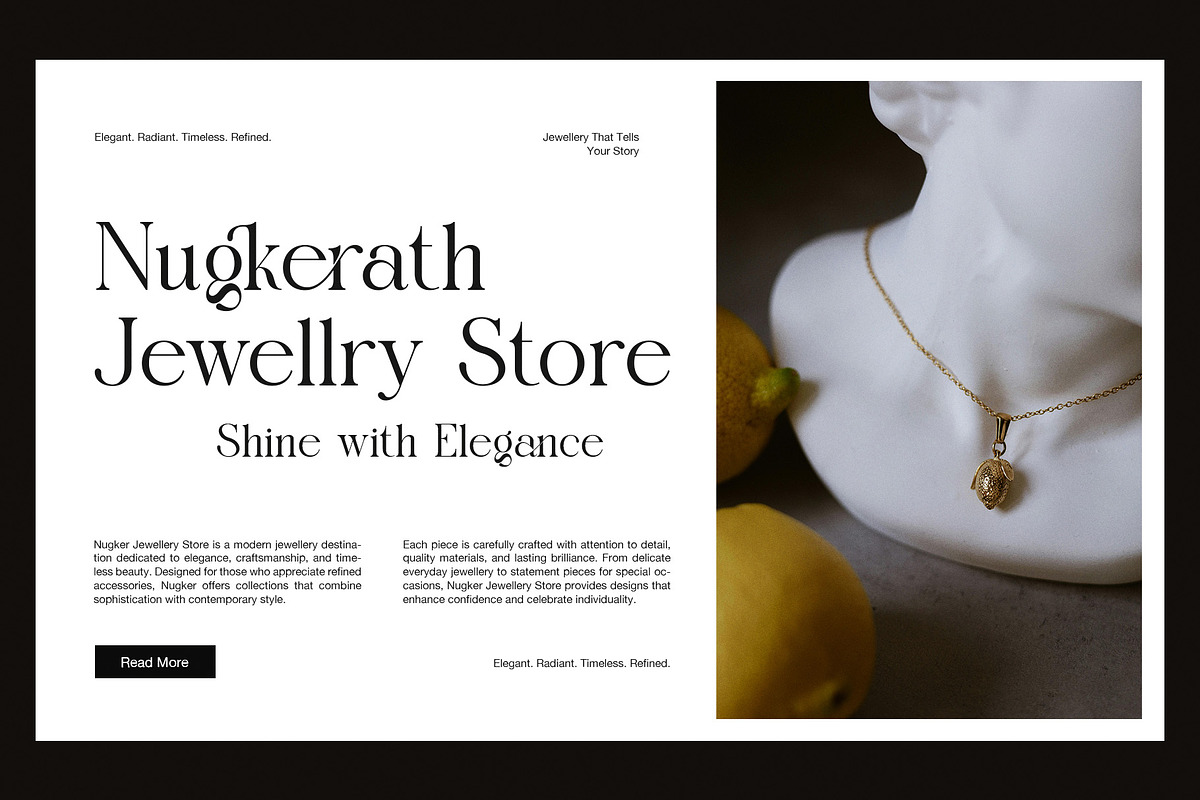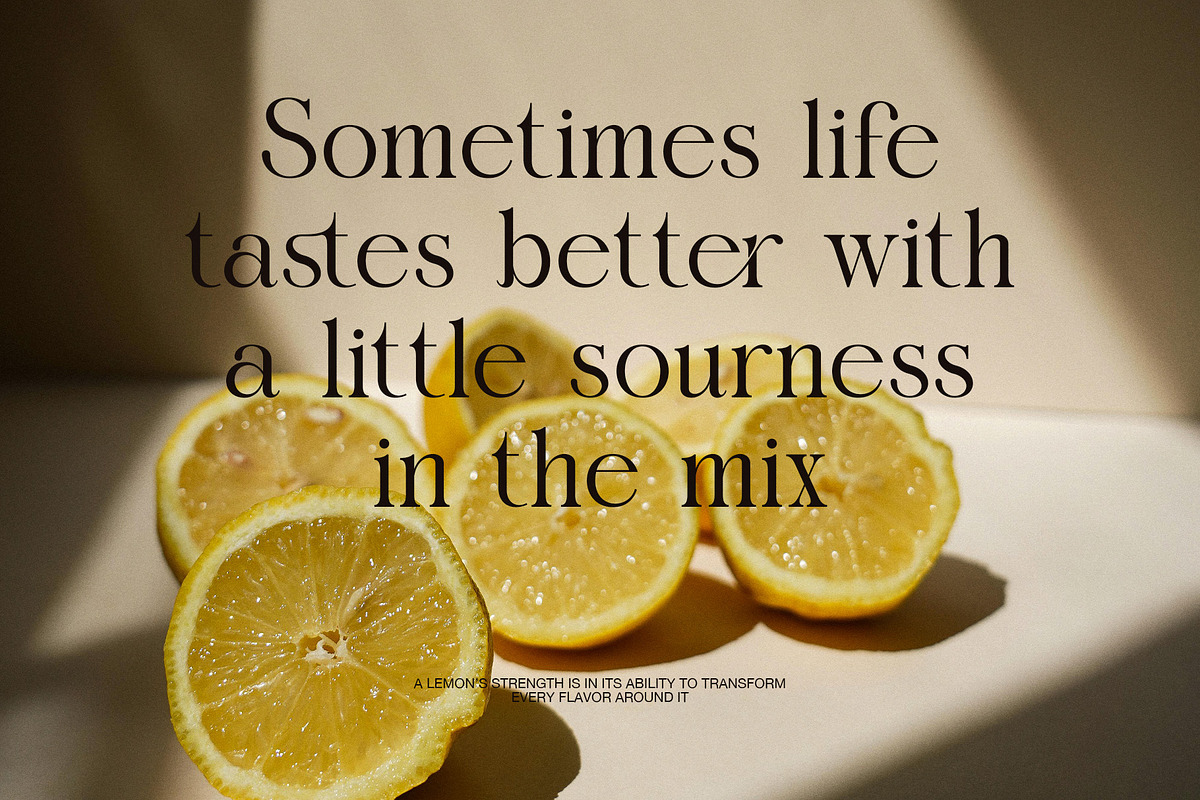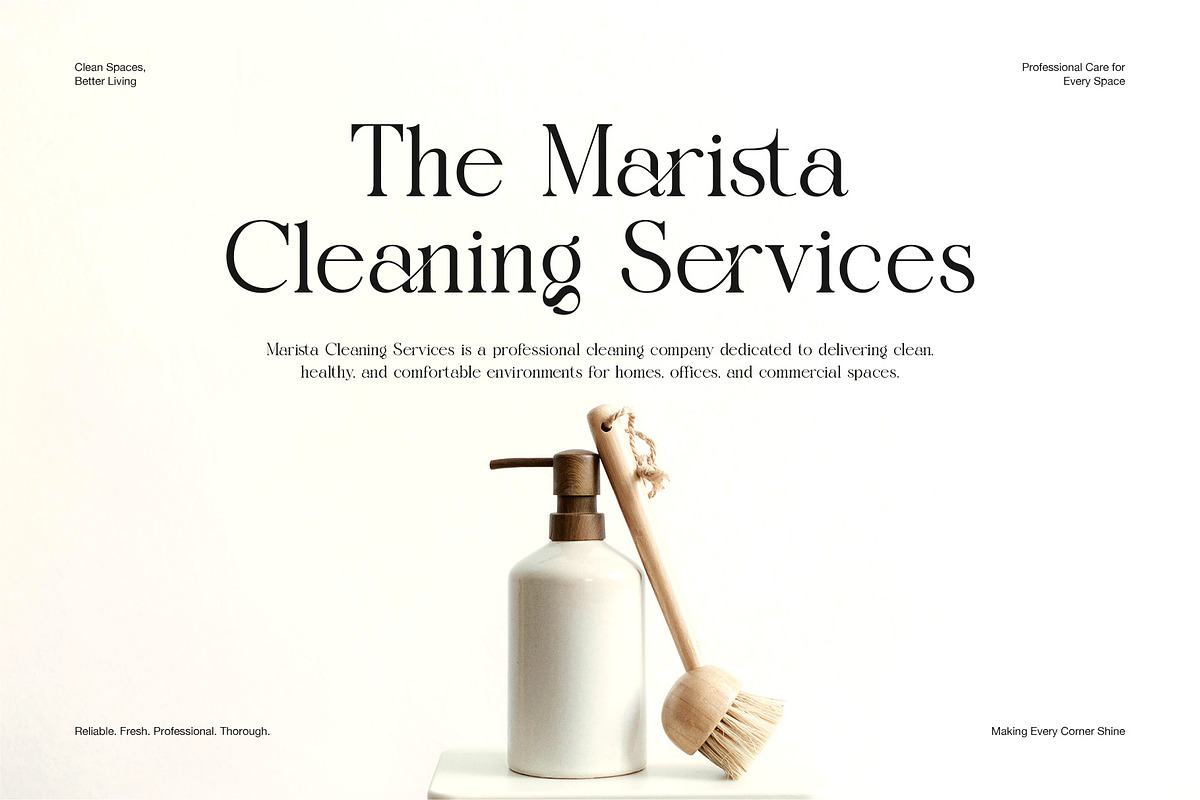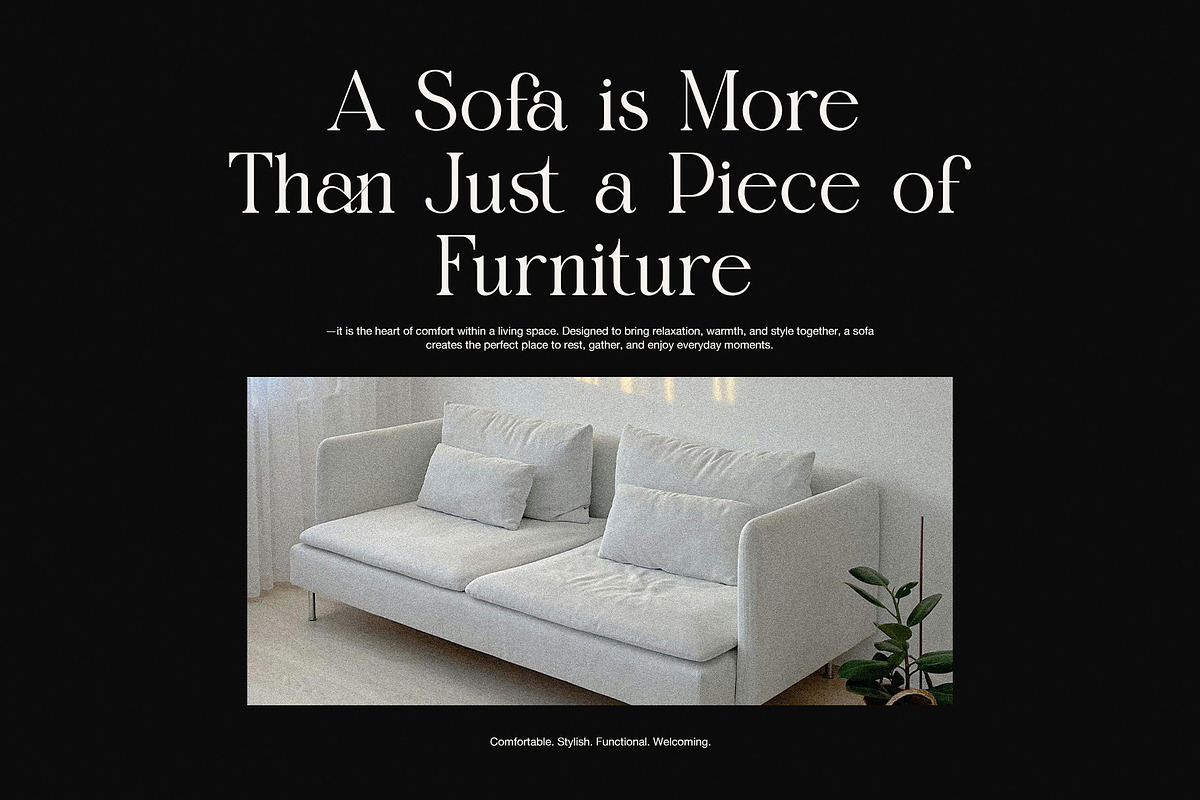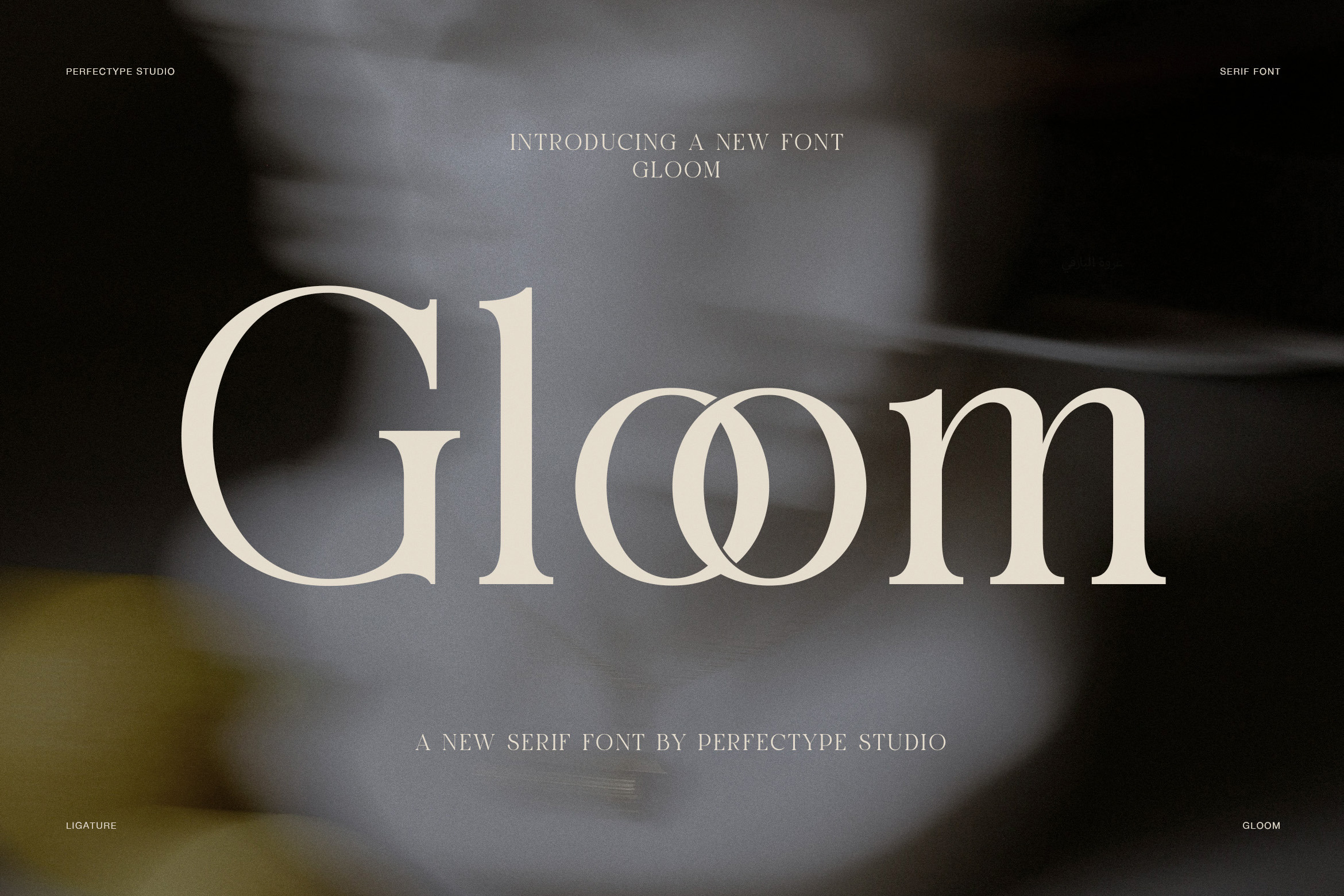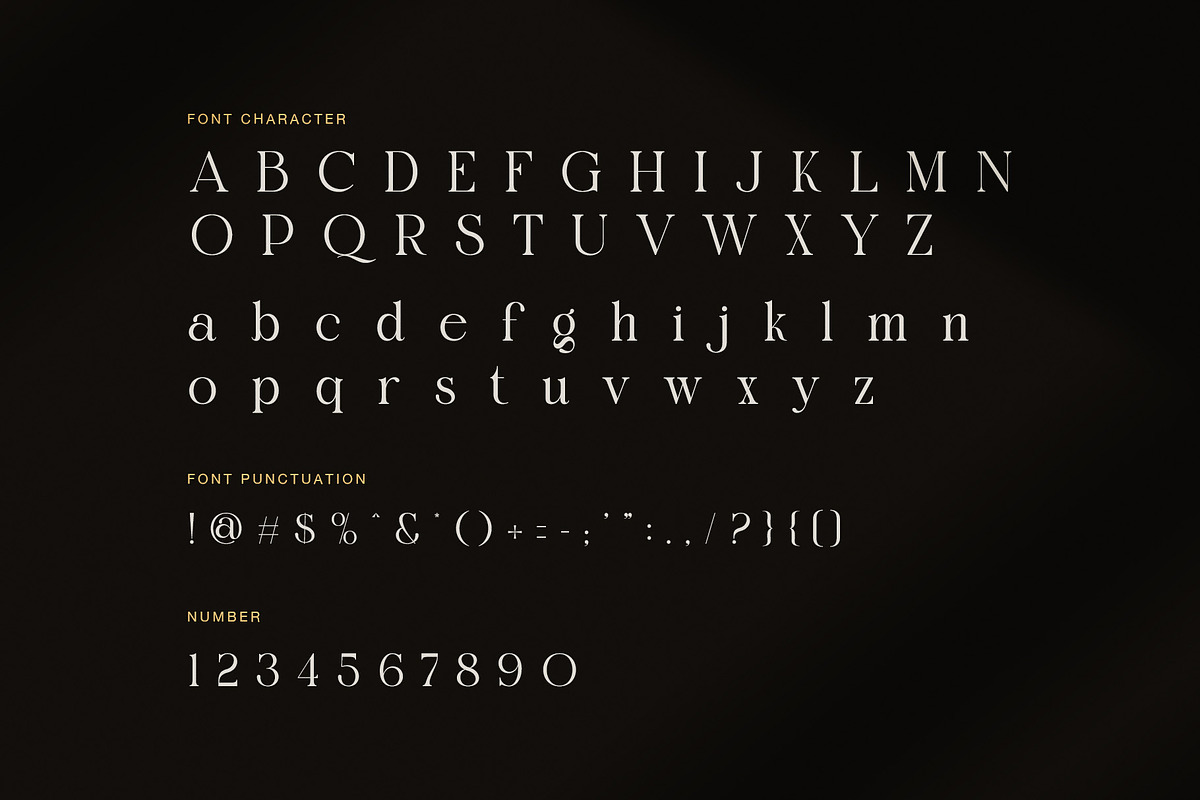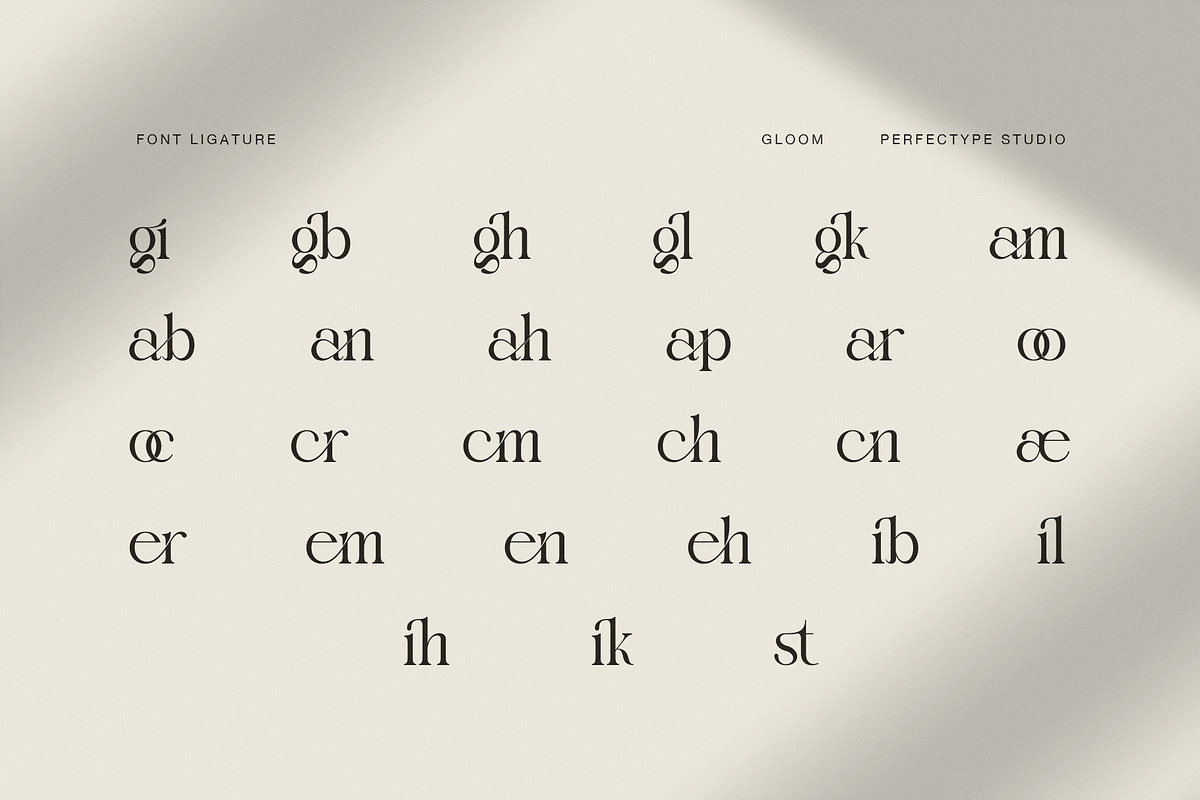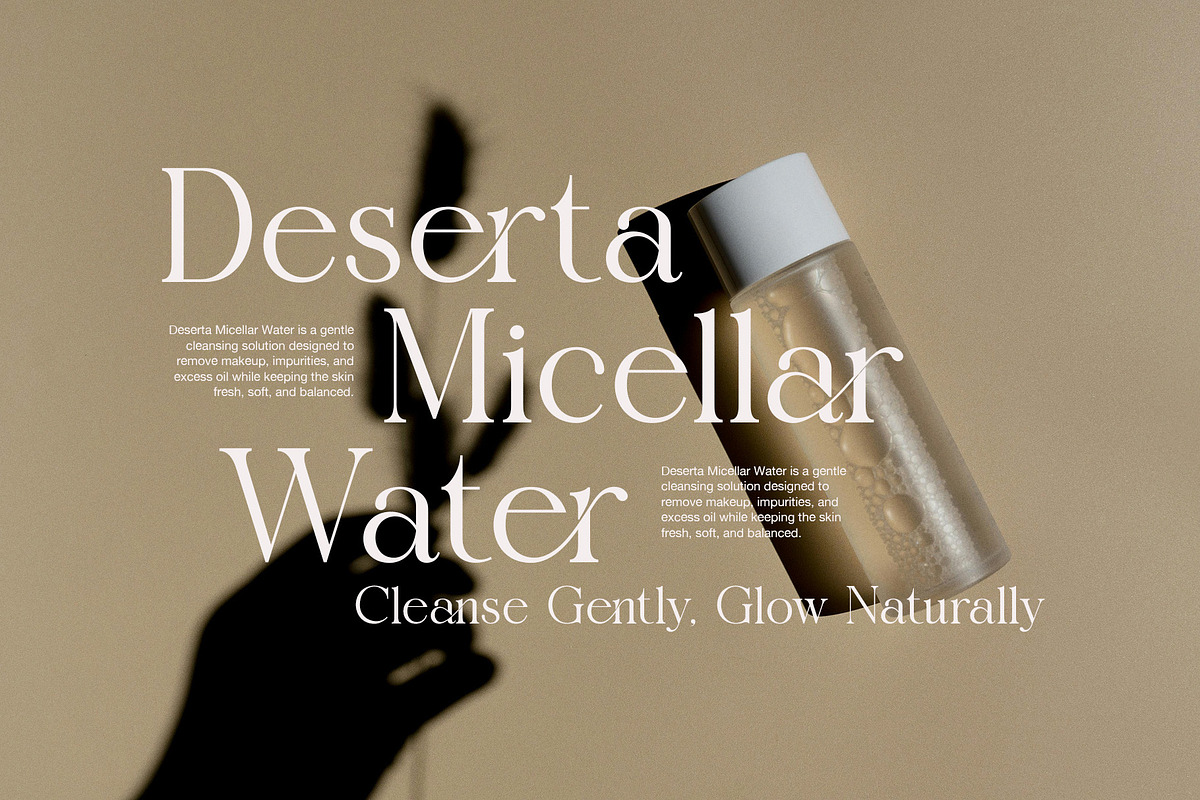
Gloom Elegant Serif Font
Gloom is an elegant editorial serif font created for designers who want a refined look with a modern fashion feel. With its high-contrast strokes, slender serifs, graceful curves, and stylish proportions, this typeface brings a polished presence to every layout. At the same time, its clean structure keeps headlines clear, balanced, and easy to read.
Elegant Editorial Style
Gloom blends classic serif details with a contemporary display style. Therefore, it works especially well when typography needs to feel luxurious without becoming too formal. The thin hairlines and strong vertical strokes create a beautiful contrast, while the carefully shaped letters add a soft and artistic touch. In addition, the distinctive lowercase forms give short words and large titles a memorable character.
Stylish Ligatures
A key feature of Gloom is its collection of decorative ligatures. These alternate letter combinations connect selected characters and create a more custom-made appearance. As a result, designers can add subtle personality to branding, headlines, and premium layouts without changing the overall elegance of the typeface.
Made for Modern Design
Gloom is a versatile choice for fashion branding, beauty products, luxury packaging, editorial layouts, wedding stationery, and creative campaigns. Moreover, it can bring a sophisticated tone to logos, magazine covers, posters, invitations, social media graphics, and website headers. Its refined shapes also suit minimalist designs where typography needs to carry the visual focus.
Elegant high-contrast serif design
Fashion-forward editorial appearance
Stylish and decorative ligatures
Refined uppercase and lowercase characters
Numbers and useful punctuation
Clean forms for premium visual projects
Suitable for branding and display typography
Ideal for luxury, beauty, fashion, and lifestyle designs
Whether you are creating a chic brand identity or an expressive editorial composition, Gloom gives your work a polished foundation. Furthermore, its graceful details help simple layouts feel more considered and distinctive. The font is especially effective at large sizes, where its contrast and elegant curves become more visible. However, it can also support shorter supporting text when a sophisticated serif voice is needed.
Choose Gloom when you want an elegant editorial serif font that feels timeless, stylish, and current. It is designed to help creative work look premium, confident, and memorable.